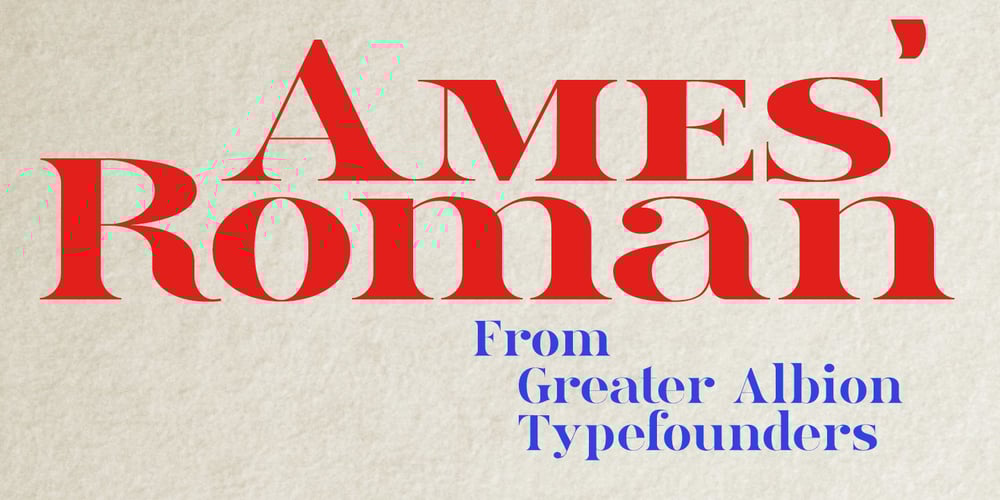
Ames’ Roman
Ames’ Roman font
Ames’ Roman Font Family was designed by Paul James Lloyd and published by Greater Albion Typefounders. Ames’ Roman contains 16 styles and family package options. Ames’ Roman is a stylish ‘New-Style’ Didone Roman family offered in divers weights and widths. It is designed to embody clarity combined with dramatic contrast between horizontal and vertical strokes. All typefaces include small capital forms, new and old style numerals (and indeed ‘small capital’ numerals for consistency). Ames’ is a Roman with the charm of the past and the spirit of the future! It’s ideal for headings and titles and anywhere else you need text of distinction. Watch out for the forthcoming Ames’ Text…